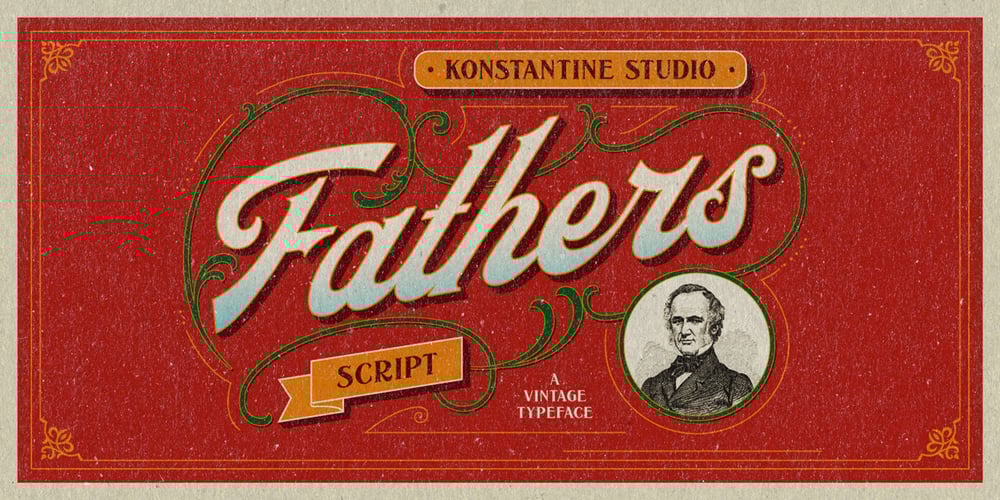
Fathers Font Family was designed by Abdilah and published by Konstantine Studio. Fathers contains 1 styles and family package options. Introducing Fathers, Inspired from the vintage classic old packaging and advertising back in 1950 – 1980’s era. perfectly fit for your classic packaging, vintage logo branding, old poster and advertising. Get the easy forefathers feel by just type it out to your design.